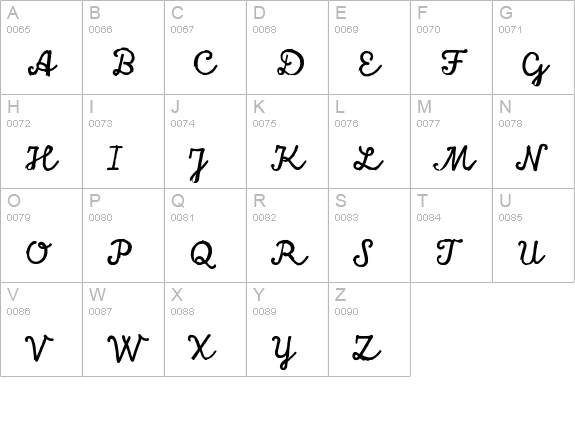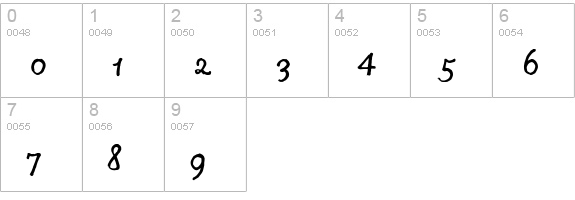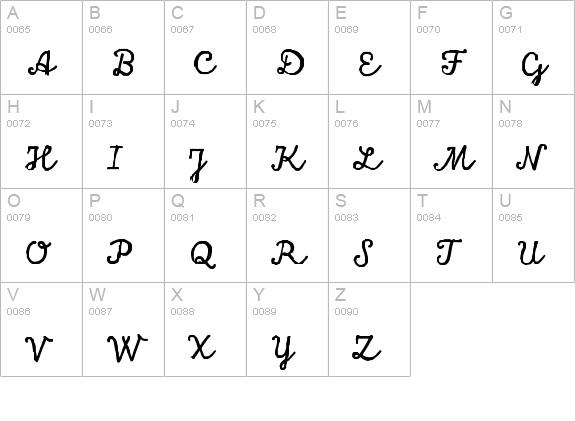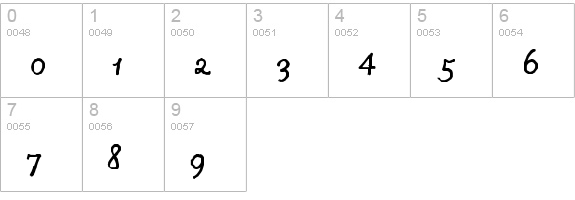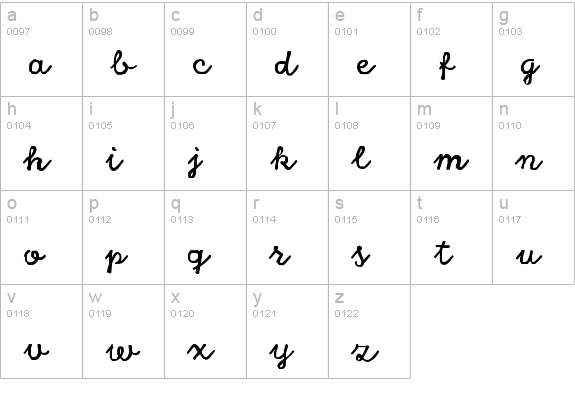
Goodlife Script is a beautifully crafted font that exudes elegance and sophistication. With its graceful curves and flowing strokes, this script font is perfect for adding a touch of class to your designs. Whether you're working on invitations, branding materials, or any other project that calls for a touch of refinement, Goodlife Script is sure to impress. What's even better is that Goodlife Script is available for free download at FontsMarket.com. This means you can add this stunning font to your collection without any cost, making it a valuable resource for any designer. Don't miss out on the opportunity to elevate your projects with the timeless charm of Goodlife Script. Download it today and let your creativity shine.